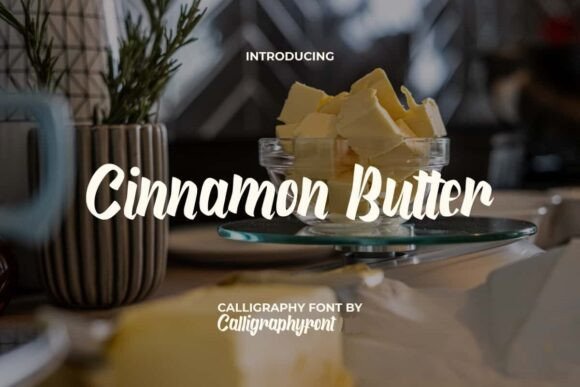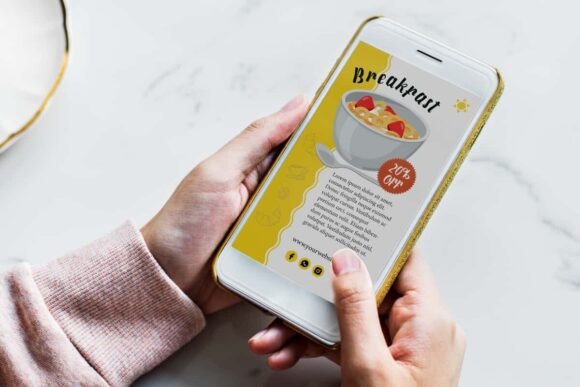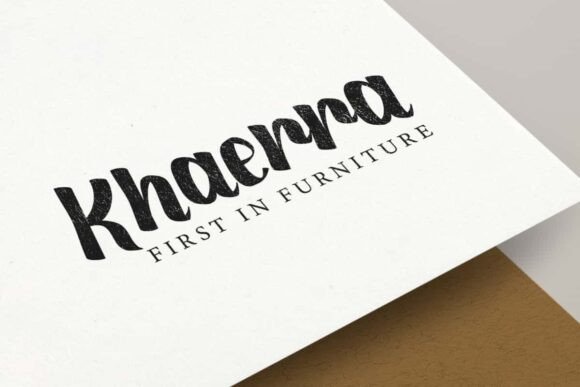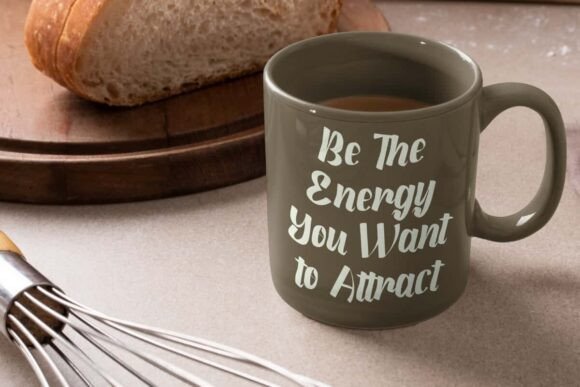
Cinnamon Butter Font: A Delicious Calligraphy Font for Branding & DIY Projects
About the Cinnamon Butter Font
Step up your design game with Cinnamon Butter Font, a font that exudes confidence and style. Cinnamon Butter Font is another delicious, beautiful calligraphic font by CalligraphyFonts.Net. Originally inspired after feeling hungry, the font we believe can be great for any graphic design you create. This is a modern calligraphy font with bold characters. This font can make your design stand out and make you curious. It’s perfectly made to any creative project, such as brand logo, cover, custom design, invitation, label, marketing material, menu board, packaging, quote, screen print, website, and many more!
Cinnamon Butter Font Usage Examples
Cinnamon Butter Font Example